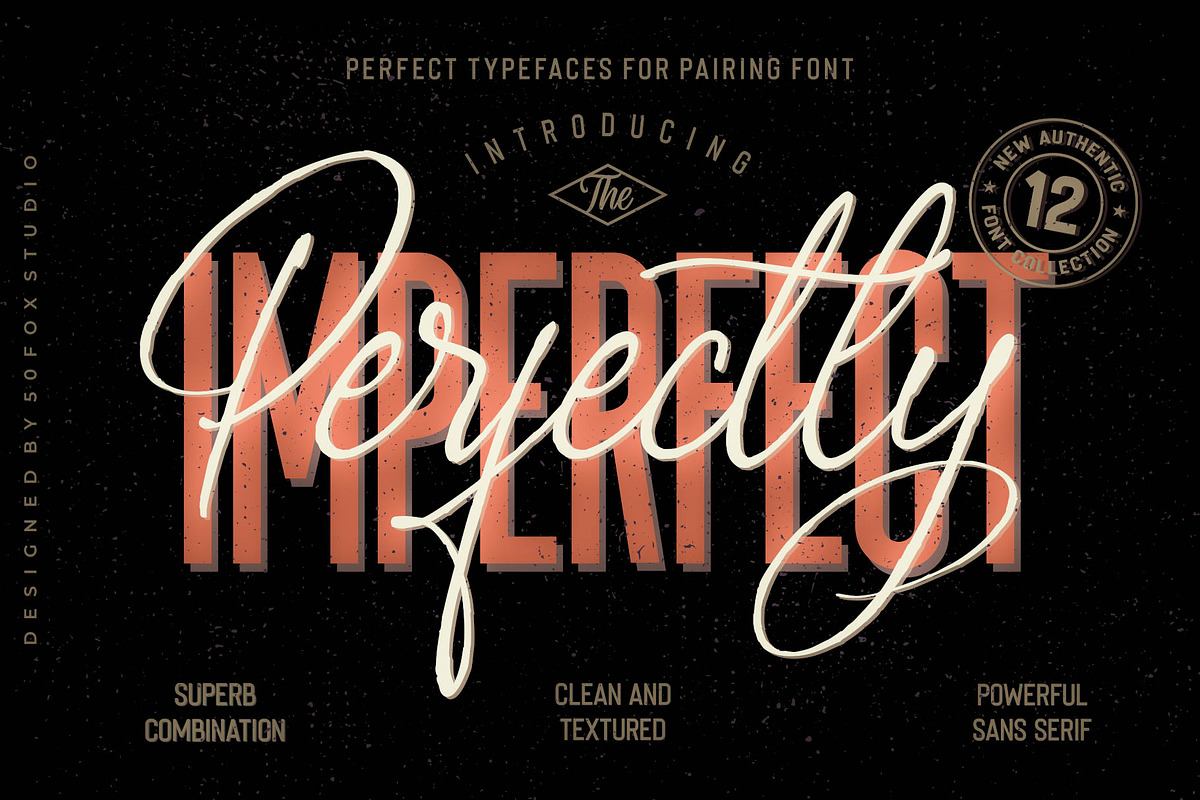
Perfectly Imperfect Collection Free Download is a playful and authentic font bundle that celebrates individuality, creativity, and the beauty of imperfections. Each typeface in this collection brings a unique personality—some quirky, some bold, all irresistibly charming. Whether you're designing for handmade products, inspirational quotes, personal blogs, or whimsical branding, this bundle adds warmth and character to every project. With Perfectly Imperfect Collection Free Download, you can explore the fonts’ personality in personal projects or preview how they enhance your creative direction before licensing them for commercial use. This collection speaks to the heart of designers who embrace the raw, real, and wonderfully unpolished. Let your work reflect your creative spirit with fonts that say: it’s okay not to be perfect—it’s better to be real.